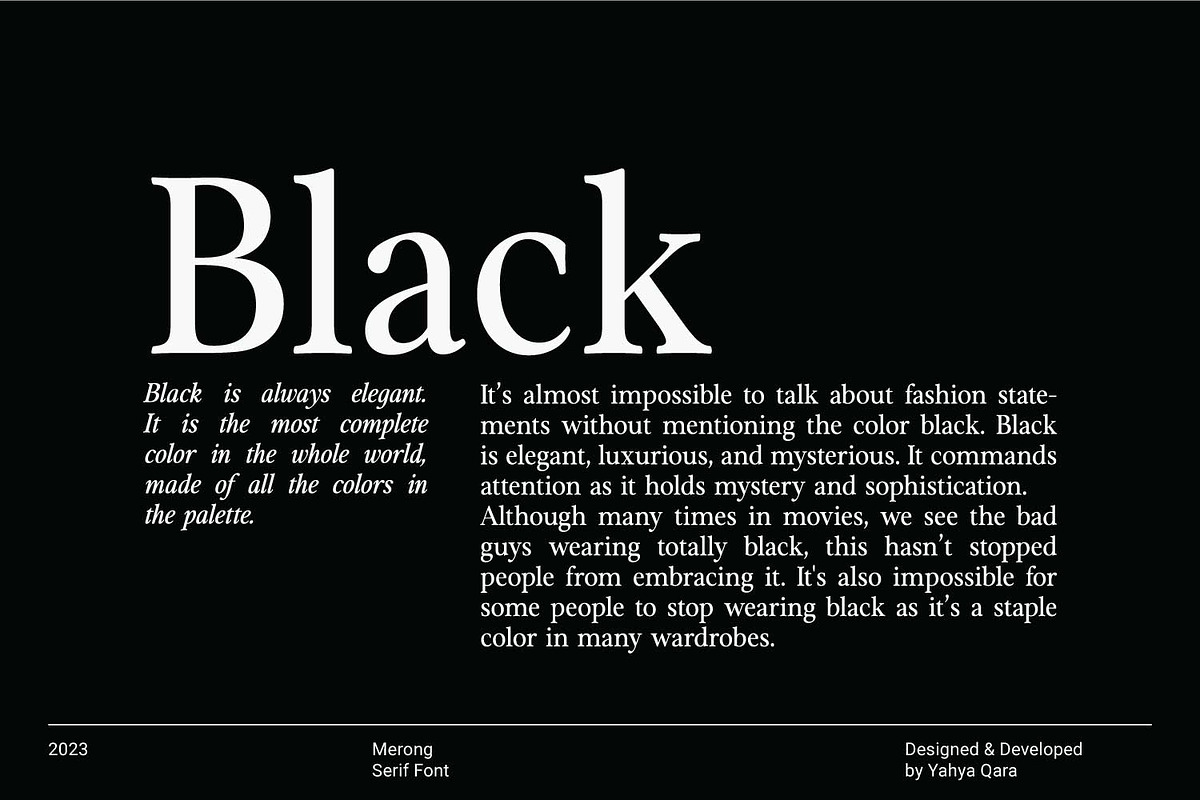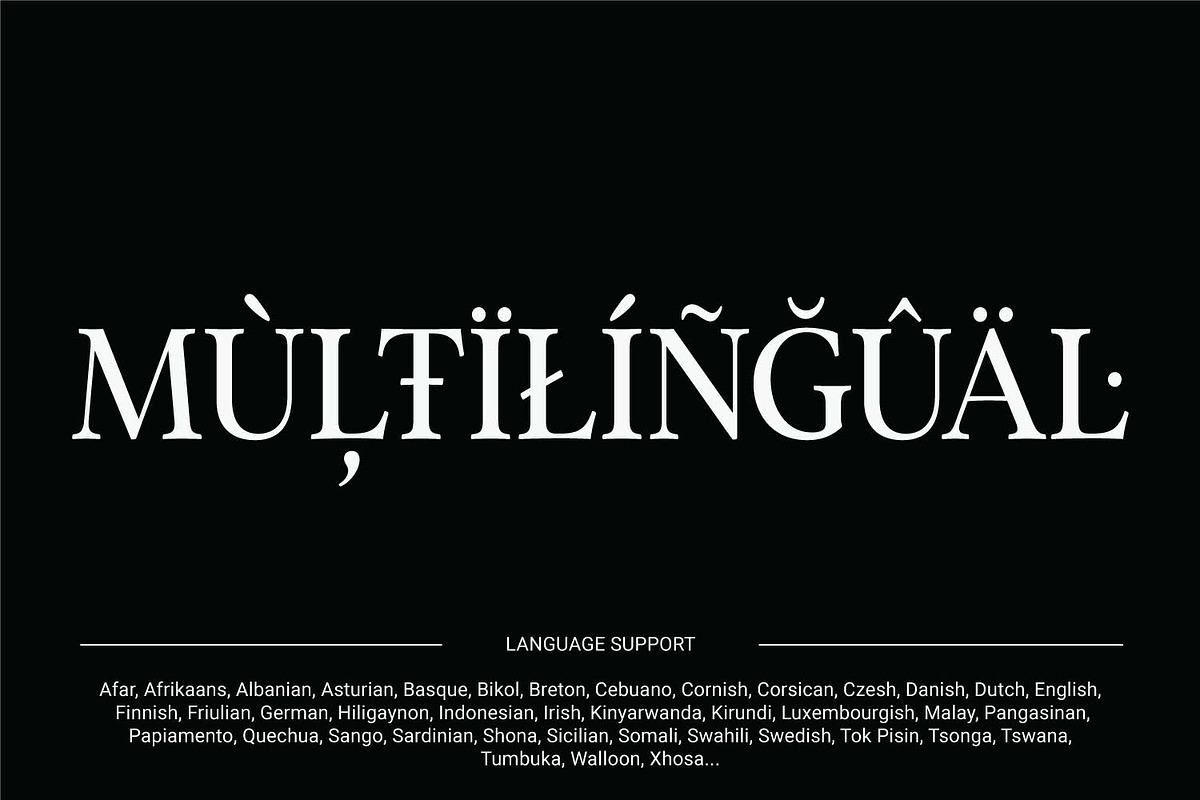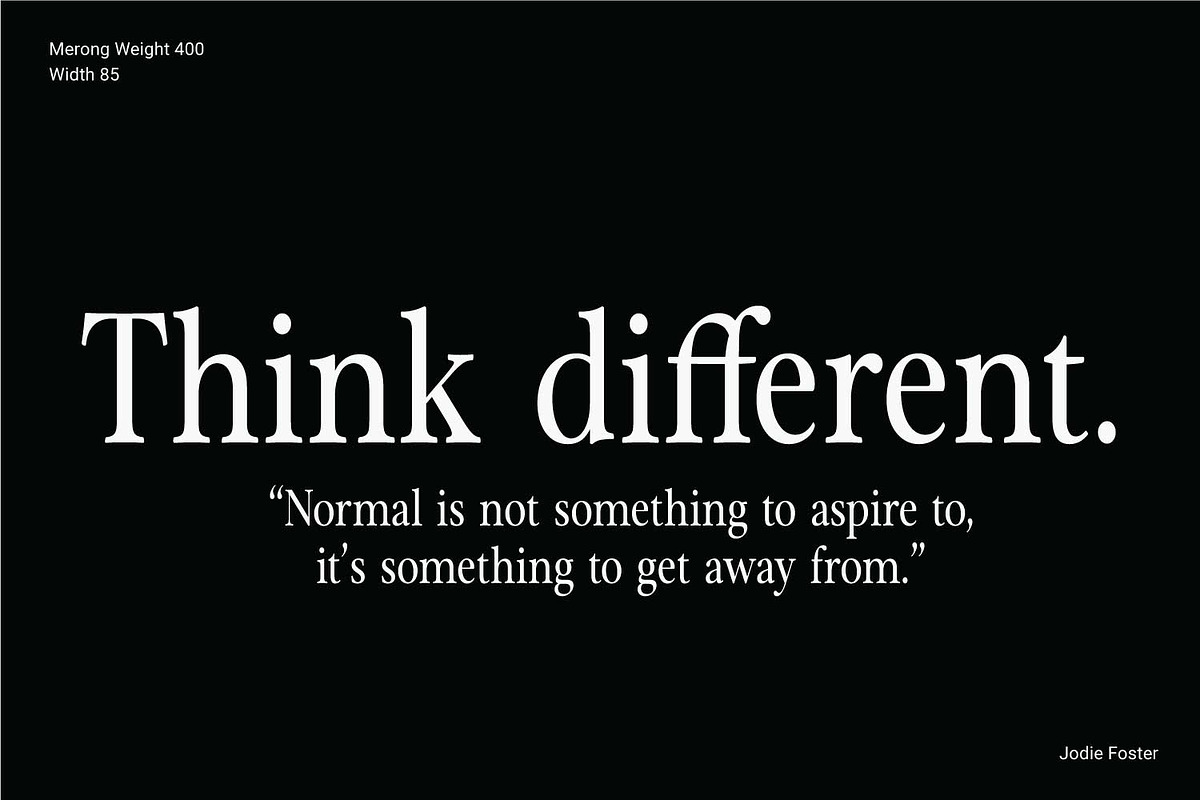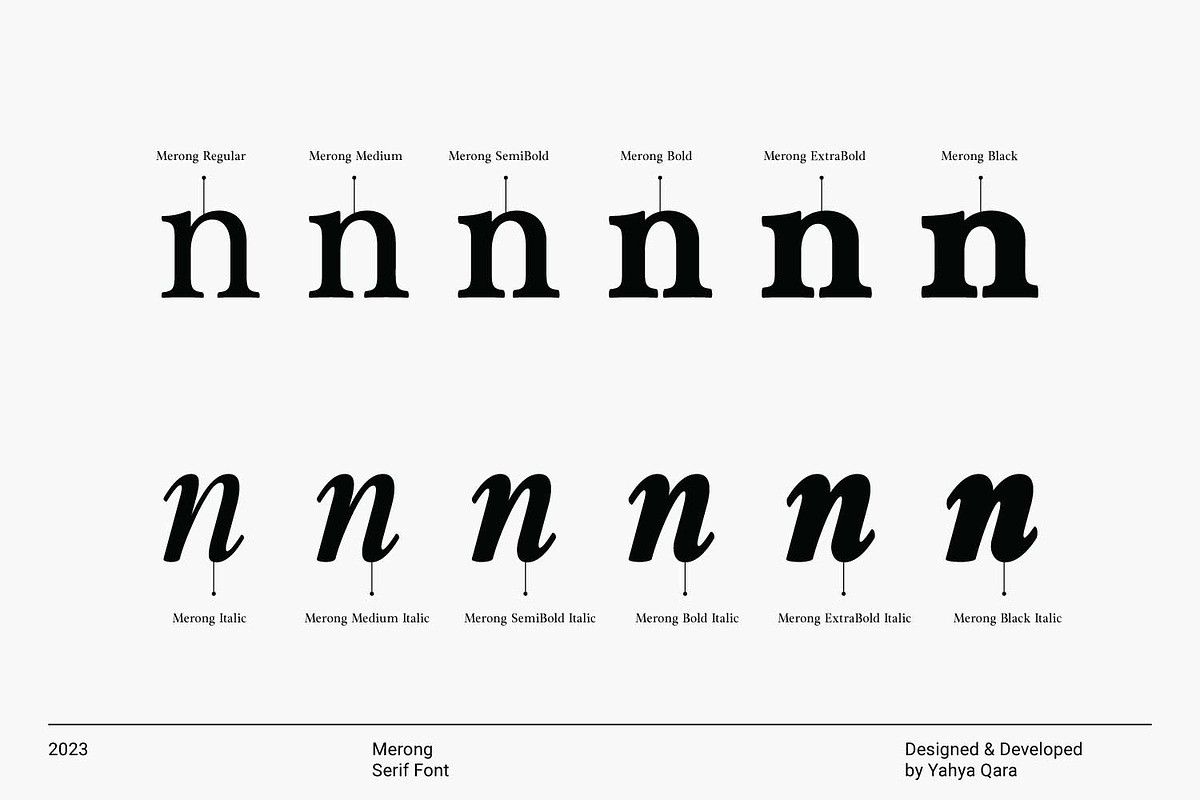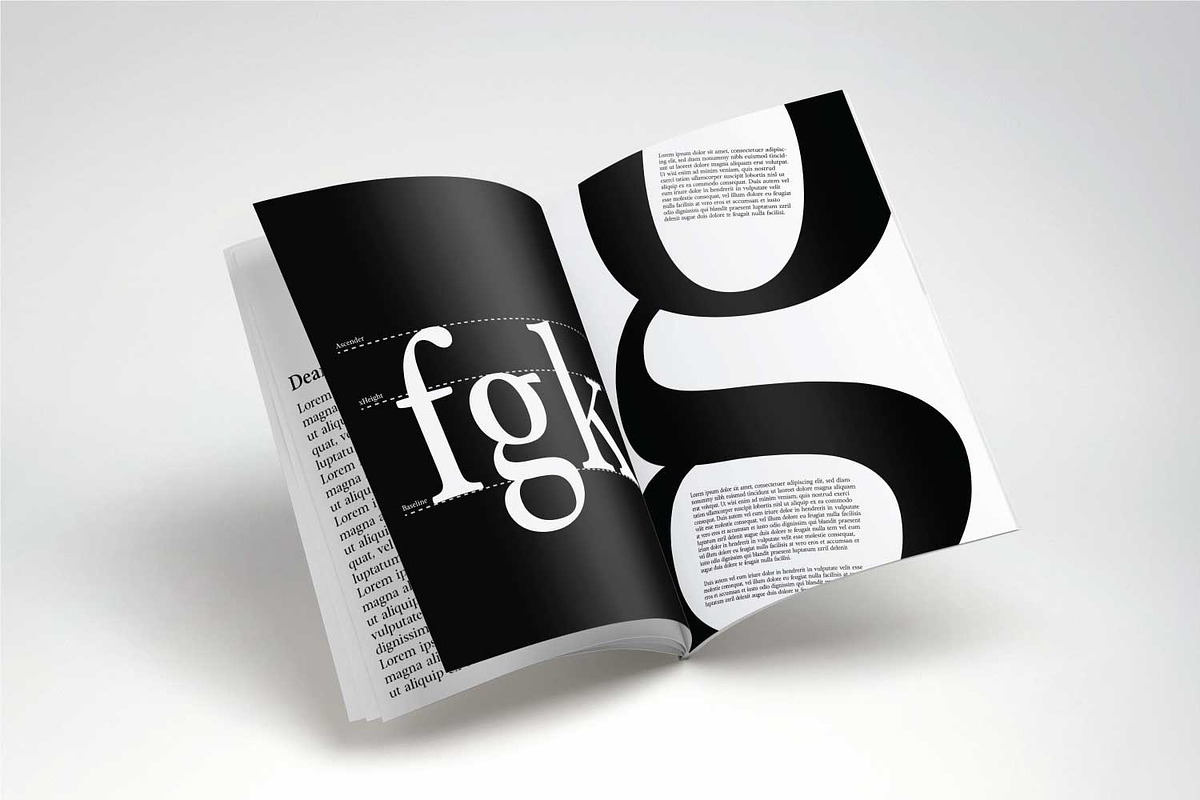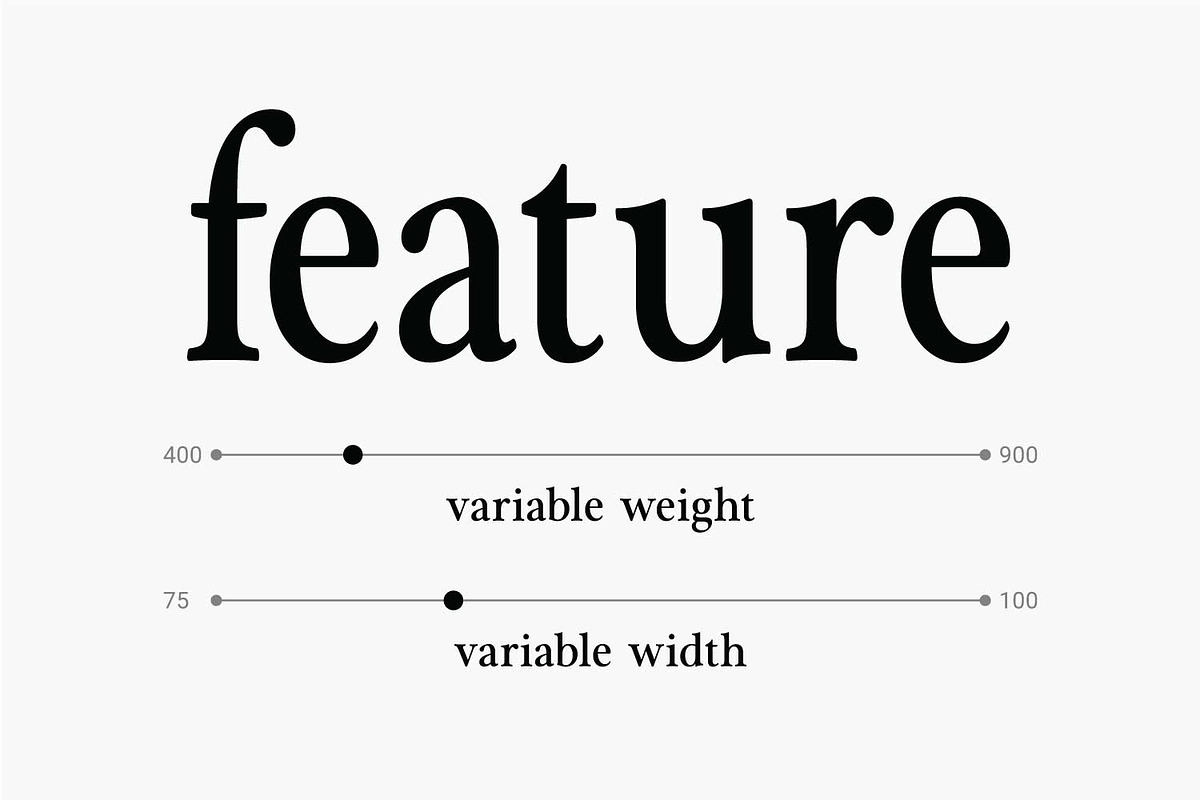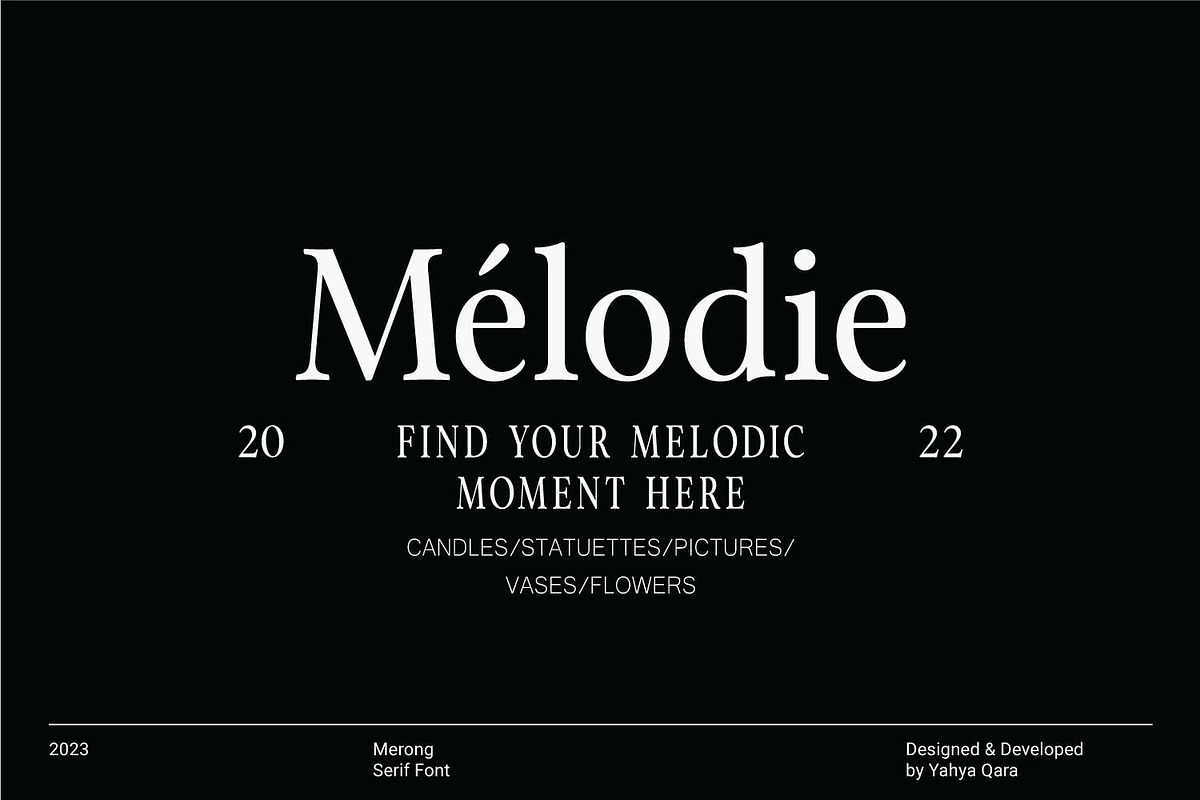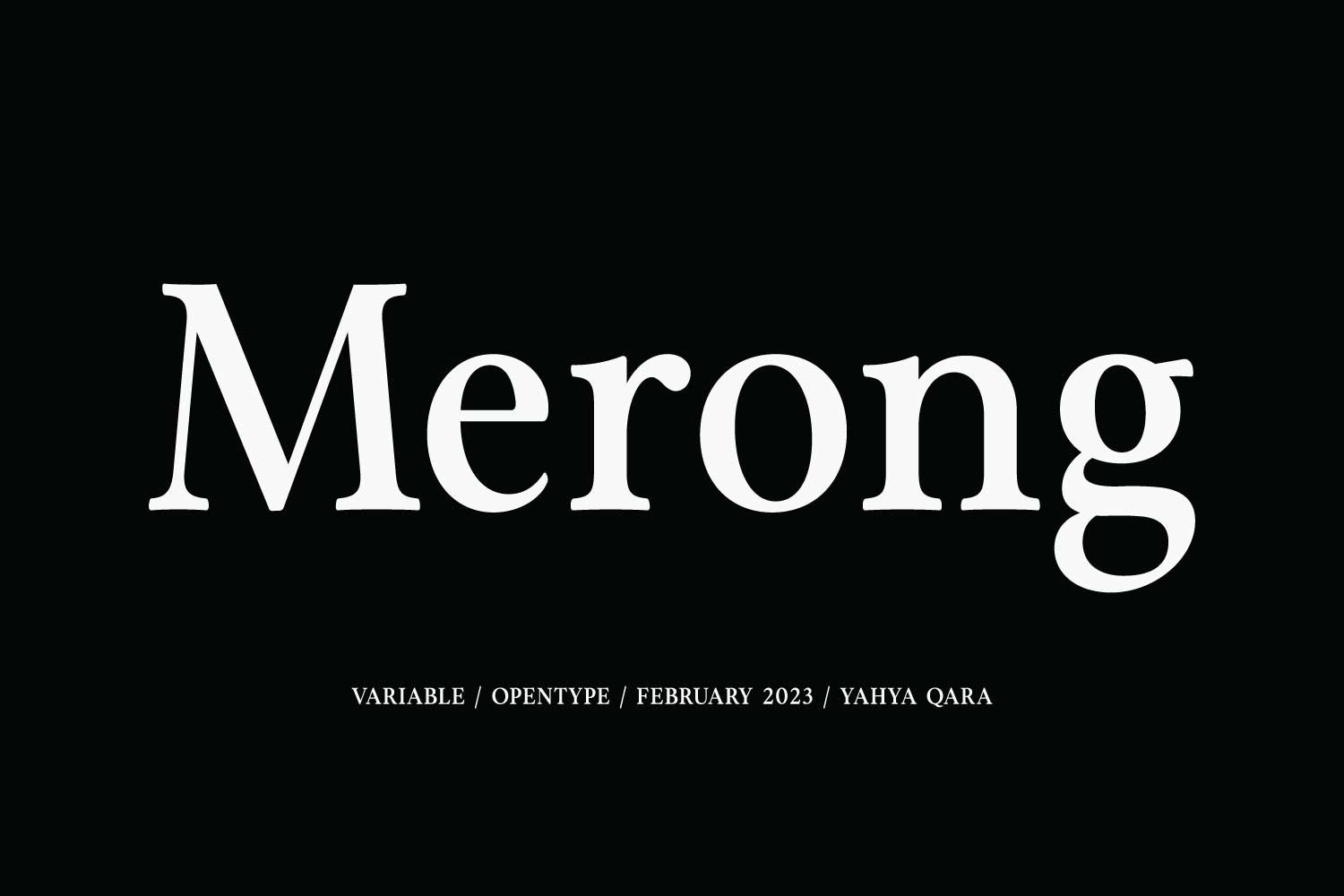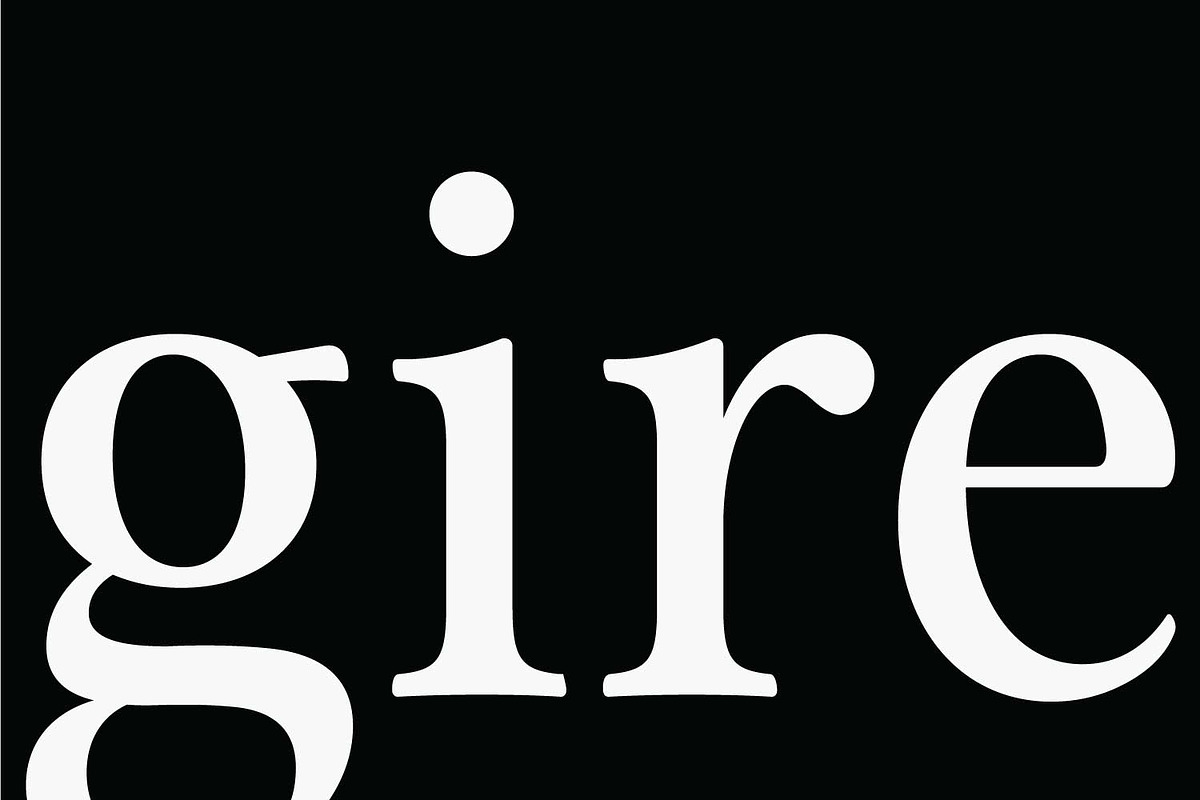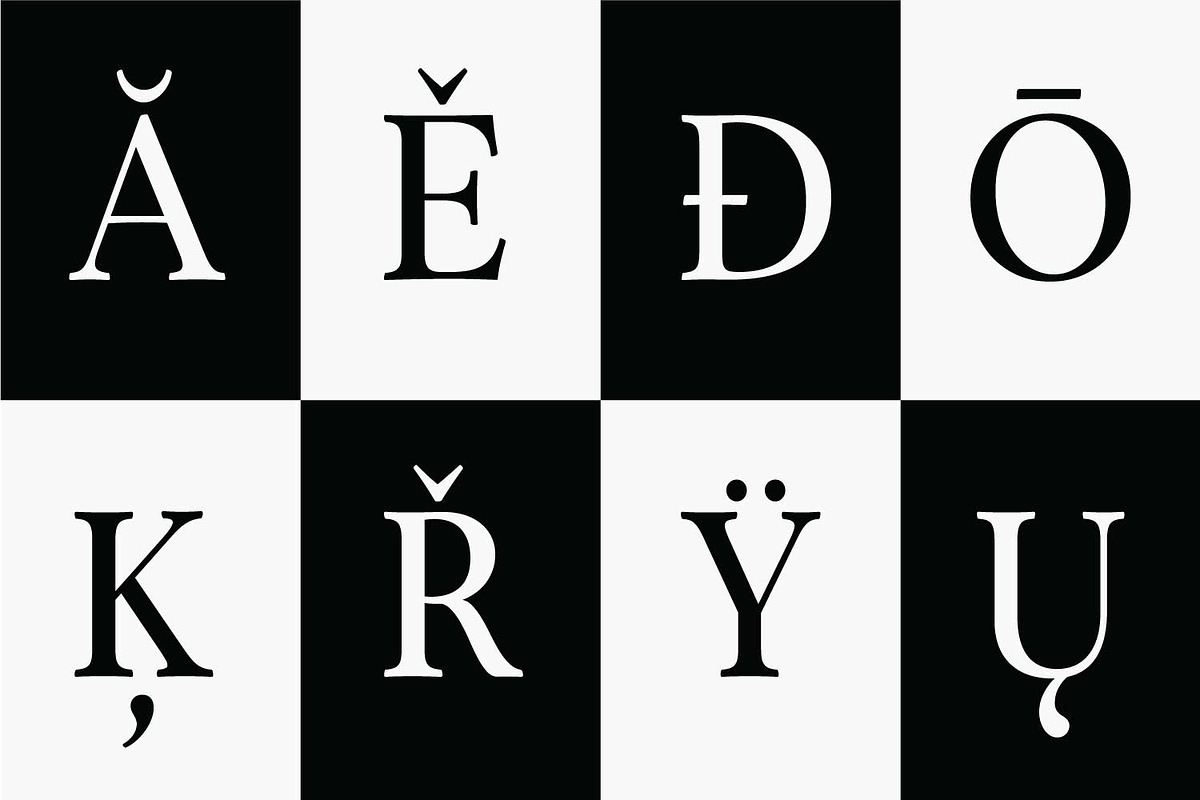
Merong Family (24 Fonts)
Introducing Merong, a versatile serif font that adds a touch of elegance and sophistication to your design projects. Whether you're creating a print or digital design, Merong is the perfect typeface for capturing attention and delivering your message in style.
With its variable font technology, Merong offers a range of styles, from regular and elegant to bold and dramatic. You can easily adjust the weight and width of the font to suit your needs, making it a flexible choice for a variety of projects.
Merong is an excellent choice for a variety of design projects, from branding and marketing materials to editorial layouts and web design. It's a font that can adapt to your needs and help you achieve your desired aesthetic.